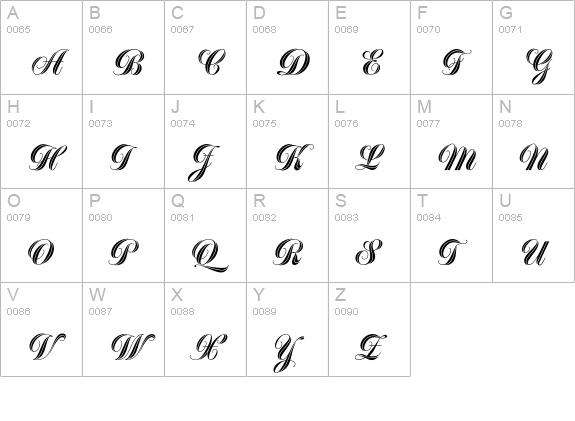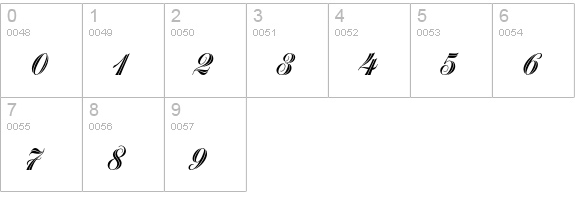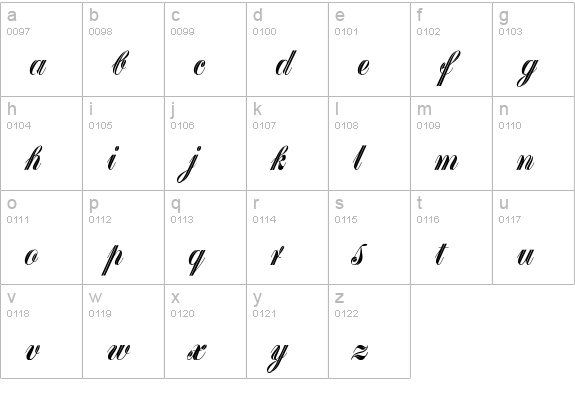
Greyton Script Std Font Details
Greyton Script Std font is a beautiful and elegant typeface that exudes sophistication and charm. With its flowing lines and delicate curves, this script font is perfect for adding a touch of class to your designs. Whether you're working on wedding invitations, branding materials, or any other project that requires a touch of elegance, Greyton Script Std is sure to impress. What's even better is that Greyton Script Std is available for free download at FontsMarket.com. This means that you can easily access this stunning font and use it in your projects without any cost. So go ahead and download Greyton Script Std today to add a touch of style and sophistication to your designs.